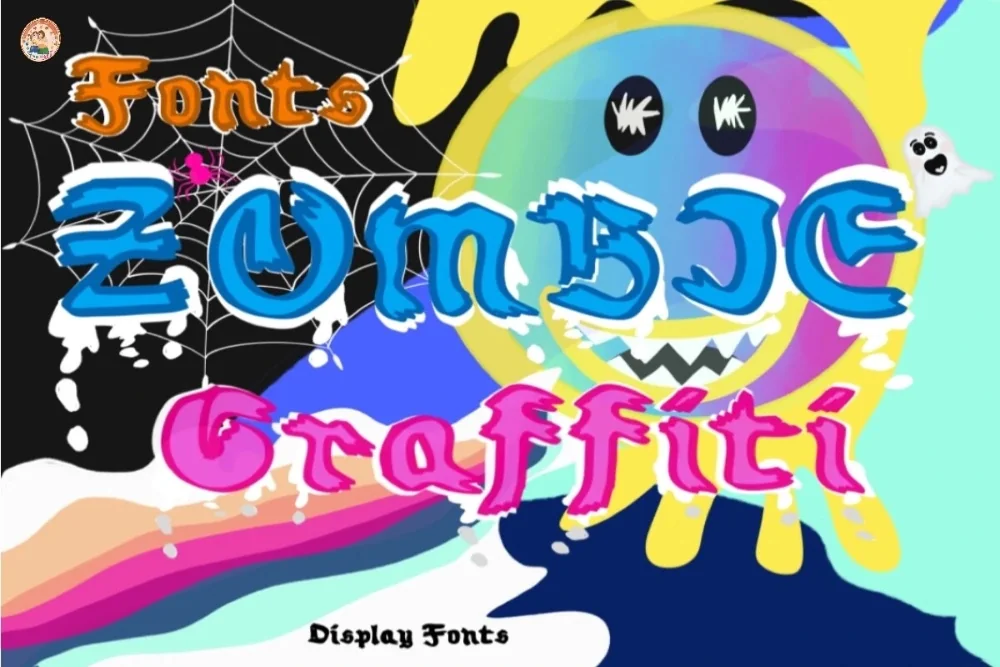
Zombie Drip Graffiti Font
Every collection needs a drip graffiti font that can carry a whole layout on its own. This is that font. Heavy drips running down from every stroke. The horror-season staple of the collection.
Drips vary in length across the alphabet so a line of text ends in an uneven, organic edge. The letters themselves are simple and bold, keeping words readable under the effect.
Made for Halloween designs, horror posters, energy drink branding, and spooky apparel.
Pair it with something quiet. A plain sans for body copy lets the lettering do its job instead of fighting the paragraph underneath it for attention.